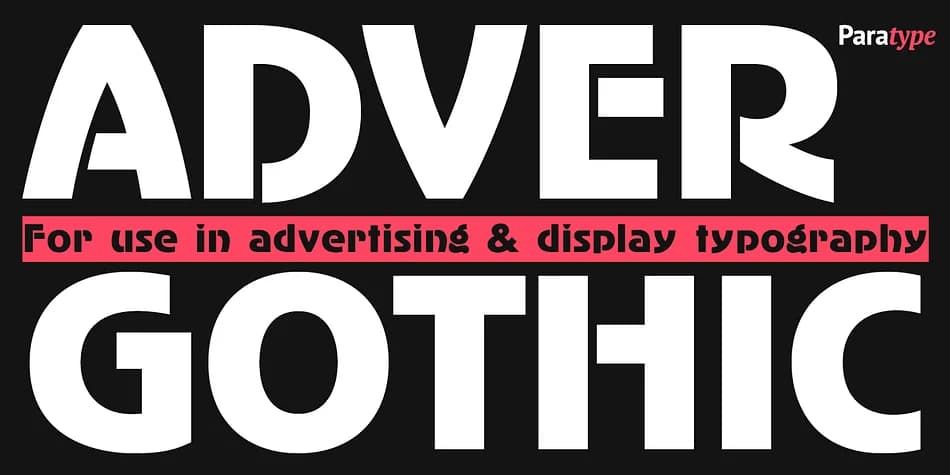
There's something distinctly vintage about this typeface that makes you reach for it when designing a retro poster, branding a craft distillery, or building an ornate invitation suite. AdverGothic comes from ParaType, originally designed by Vladimir Yefimov in 1989 as a modern take on Robert Wiebking's 1917 Advertisers Gothic, itself a legacy of the Art Nouveau movement.
What gives this font its staying power is the deliberate blend of decorative flourish with actual usability. The original design carries early-twentieth-century ornamentation that reads beautifully in retro branding campaigns, vintage invitation suites, ornate packaging for specialty goods, and boutique product labels where character matters more than minimalism. Alexander Tarbeev expanded the family in 1993 and 1996 by adding two additional decorative styles, giving you more options when you want that high-personality display work without sacrificing readability.
The font works best as a statement piece paired with something restrained. Try combining it with a clean, modern sans-serif like Helvetica or similar for body copy or secondary text blocks. This contrast keeps designs feeling balanced and intentional, letting AdverGothic do what it does best: command attention and anchor a vintage-inspired aesthetic. Grab it from Creative Fabrica when you're ready to add that nostalgic, character-driven element to your next project.
AdverGothic Font is a decorative font that shines as a display or heading face. Pair it with a clean sans-serif or serif font for body text β the contrast creates a clear hierarchy while the two styles stay balanced and easy to read.